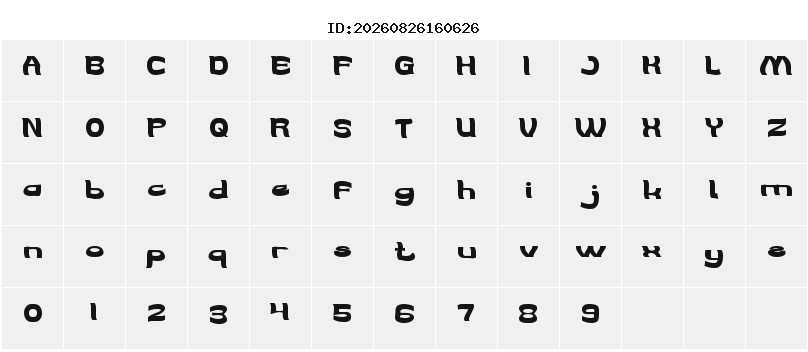
• Font Name: WE ARE THE WORD
About WE ARE THE WORD.ttf
WE ARE THE WORD.ttf is a modern, elegant sans-serif font designed for ultimate readability and visual harmony. Perfect for branding, headlines, web design, and print materials.